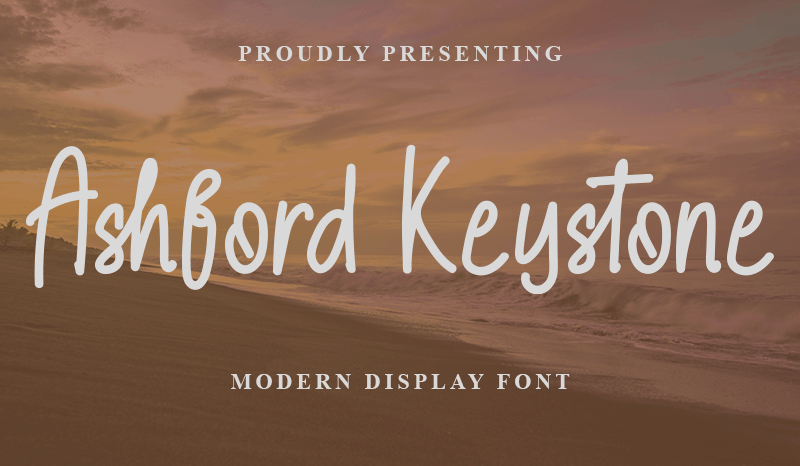
Preview and download Ashford Keystone Font. Created by Denny Sutanto in Script Handwritten styles with Free for personal use license.
Ashford Keystone Font is a Modern Display Font that are made for various vector designs, printing such as digital wedding invitations, blogs, online shops, social media, while printing can be used in the field of product clothing, accessories, bags, pins, logos, business cards, watermarks and many others. What�s Included : � OTF & TTF � Works on PC & Mac � Easy to use ( Installations ) � Easy Convert to webfont � Compabilty Windows, Apple, Linux, Cricut, Silhouette and Other cutting machines NOTE: This Demo is for PERSONAL USE ONLY! But any donation are very appreciated. PayPal Account for Donations: https://lnkd.in/fPg-VuA Link for Donations via PayPal: paypal.me/dennysutanto93 link to purchase full version and commercial license: - Creative Fabrica: https://www.creativefabrica.com/product/ashford-keystone/ref/235725/ Please visit our store for more great fonts: - https://www.creativefabrica.com/designer/densudesign/ and follow my Instagram for update: https://www.instagram.com/densudesign/ Thank You #AshfordKeystoneFont #AshfordKeystone #Font #simple #playful #joy #handwriting #soft #cheerful #font #fontdesign #logo #businesscard #card #design #graphic #written #handwritten #simple #family #cheers #cheerful #font #fontdesign #logo #businesscard #card #design #graphic #written #handwritten #simple #family #cheers #cheerful |